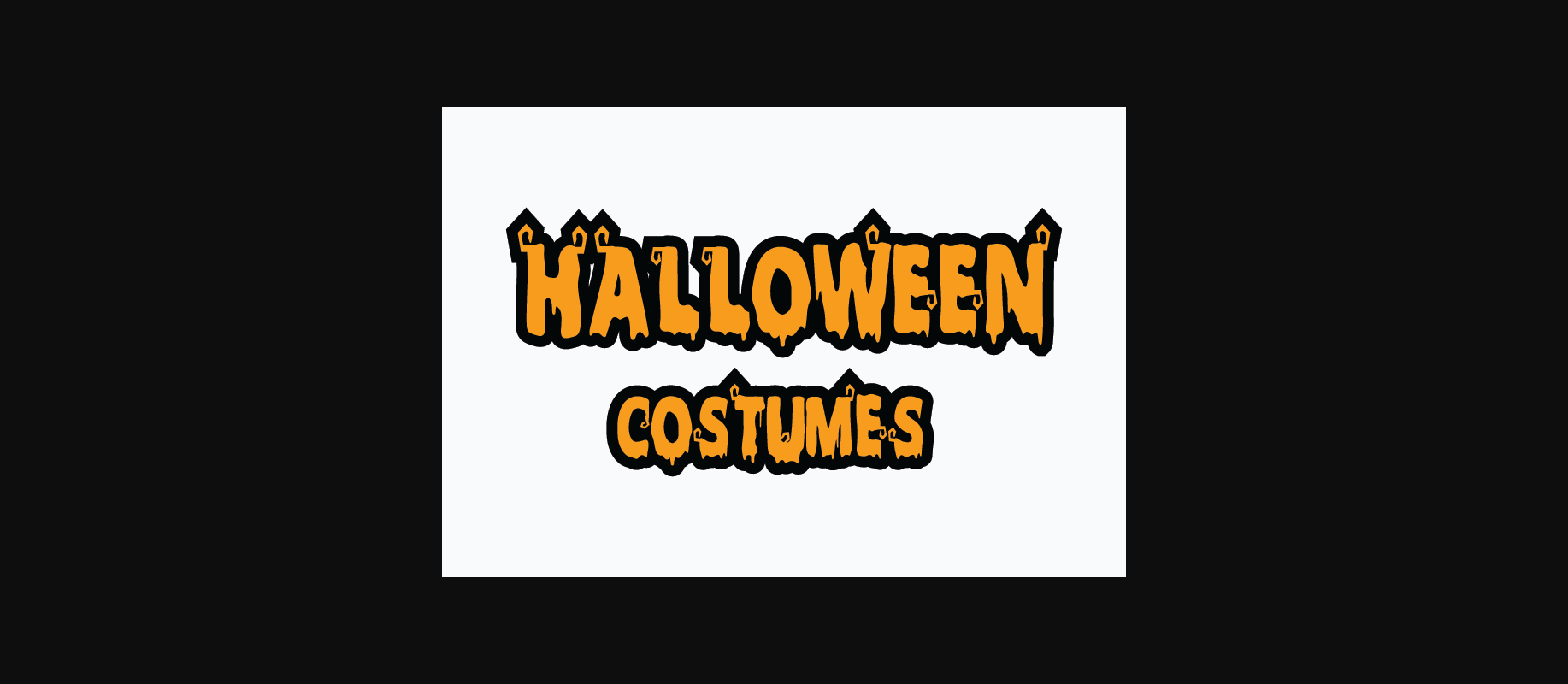
Halloween Costumes Font
About Halloween Costumes Font
Halloween Costumes Font Great for Halloween projects, Games, T-shirt Design, and projects where you need some words with special letters, spooky stories, cards, notices, gift cards, and wrapping paper. This font is great for making Halloween parties fun and it is easy to create something you can use to make people smile at your Halloween celebration.